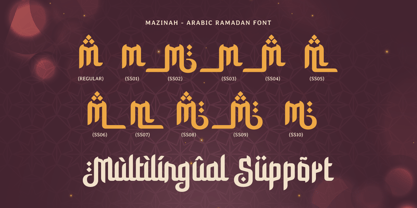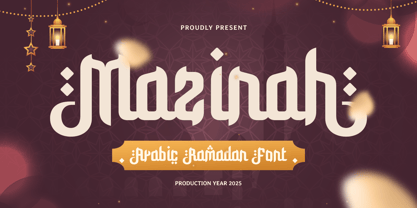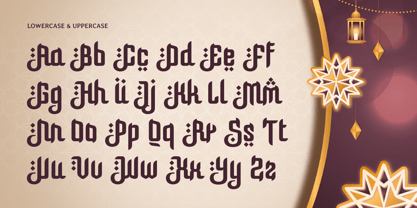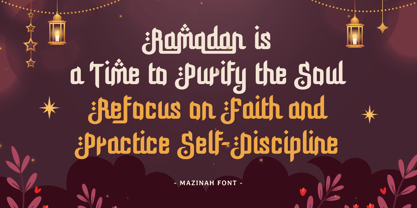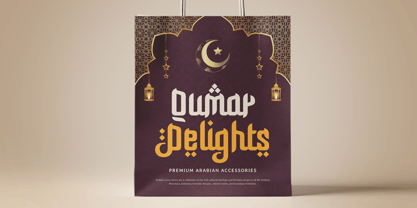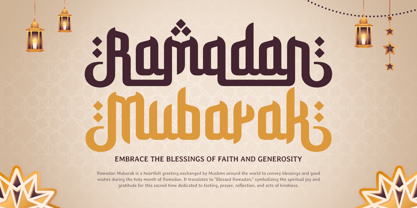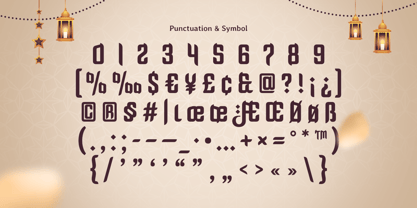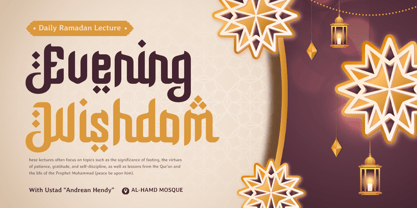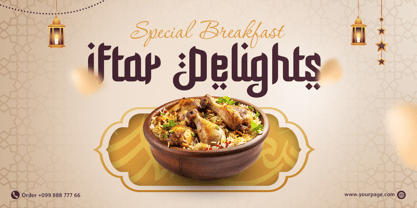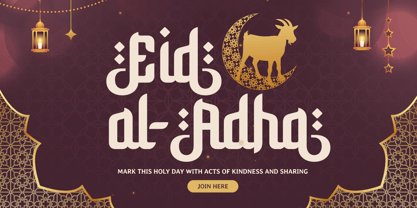
Mazinah
by Sensatype Studio
The Mazinah Font Family was designed by Zamroni Hamzah and published by Sensatype Studio. Mazinah contains 1 styles. More about this family
Mazinah - Arabic Ramadan Font
Mazinah is an Arabic Ramadan font designed to add elegance and cultural authenticity to your festive projects. Its refined curves and intricate details capture the spirit of Ramadan, making it ideal for greeting cards, event posters, product packaging, and social media content. Mazinah's modern yet traditional design ensures your creations convey a sense of warmth and celebration.
Inspired by the beauty of Arabic calligraphy and the essence of Ramadan, Mazinah brings versatility and charm to your designs. Whether you’re branding for an Islamic event or creating thoughtful messages for the holy month, this font provides the perfect balance between sophistication and cultural relevance.
Transform your projects with Mazinah, a font that radiates elegance and meaning. Its timeless appeal and modern aesthetic make it an exceptional choice for all Ramadan-related designs, ensuring your message resonates with clarity and grace.
Mazinah Arabic Ramadan Font Features:
• Elegant Arabic Script with Ramadan Spirit
• Perfect for Greetings, Branding, and Social Media
• Punctuation, Numbers, and Symbols
• Uppercase and Lowercase
• Opentype Features
Multilingual Characters available for:
Afrikaans, Albanian, Asu, Basque, Bemba, Bena, Breton, Chiga, Cornish, Dutch, English, Estonian, Filipino, Finnish, Friulian, Galician, German, Gusii, Indonesian, Irish, Italian, Kabuverdianu, Kalenjin, Kinyarwanda, Luo, Luxembourgish, Luyia, Machame, Makhuwa-Meetto, Makonde, Malagasy, Manx, Morisyen, North Ndebele, Nyankole, Oromo, Portuguese, Quechua, Romansh, Rombo, Rundi, Rwa, Samburu, Sango, Sangu, Scottish Gaelic, Sena, Shambala, Shona, Soga, Somali, Spanish, Swahili, Swedish, Swiss.